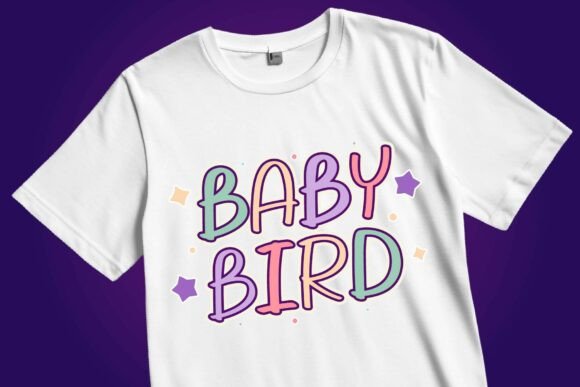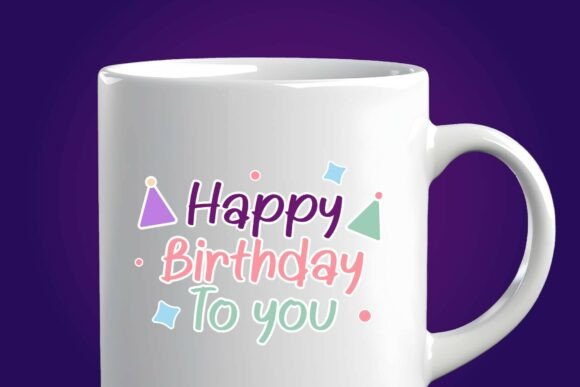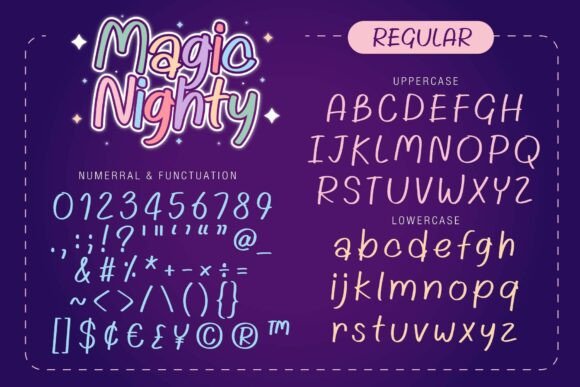
Introduction to Magic Nighty Font
Have you ever found yourself in the midst of a creative project, staring at a blank canvas, desperate for the perfect font to bring your vision to life? That’s exactly where I was when I stumbled upon the enchanting Magic Nighty Font. This mesmerizing typeface is more than just a design element – it’s a game-changer that can transform your designs and leave a lasting impression on your audience.
As a designer, you understand the importance of having high-quality resources at your disposal. The Magic Nighty Font is a valuable addition to any design library, offering a unique blend of magic and nighttime-inspired aesthetics that can elevate your creative projects to new heights.
Key Features of Magic Nighty Font
- High-quality, professional design suitable for creative projects, such as invitations, posters, and more.
- Unique, hand-crafted design with a transparent background, allowing for easy layering and customization.
- Unique, magical feel with a touch of whimsy, making it ideal for fantasy, fairy tale, or mystical-themed projects.
Honest Review: Magic Nighty Font
I recently stumbled upon the Magic Nighty Font and was excited to give it a try in my latest creative project. As a designer, I’m always on the lookout for high-quality design resources that can elevate my work.
Here’s what I liked about the Magic Nighty Font:
- ✨ The font has a unique and whimsical feel that adds a touch of magic to any design.
- ✨ The high-quality design makes it perfect for printing or digital use.
- ⚠️ The font doesn’t have a transparent background option, which can be limiting if you need to use it on a complex background.
- ⚠️ There aren’t many customization options available, which can make it difficult to adjust the font to fit your specific design needs.
Overall, I’m impressed with the Magic Nighty Font, and I would definitely recommend it as a design resource for creative projects. While it may not be perfect, its unique charm and high-quality design make it a valuable addition to any designer’s toolkit.
Tips for Getting the Most Out of the Magic Nighty Font
For the best results, use the Magic Nighty Font in conjunction with other design elements, such as images and graphics, to create a visually appealing and cohesive design. You can also experiment with different font sizes, colors, and alignments to add depth and interest to your design.
Common Use Cases for the Magic Nighty Font
The Magic Nighty Font is ideal for use in creative projects, such as graphic design, digital art, and typography. It’s also a great resource for designers who want to add a touch of magic to their designs, whether it’s for a free download or a paid project.